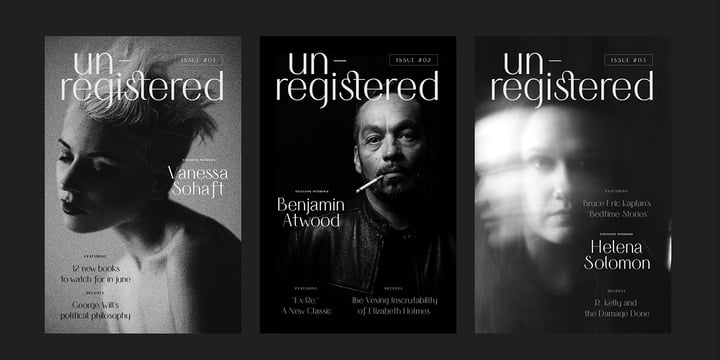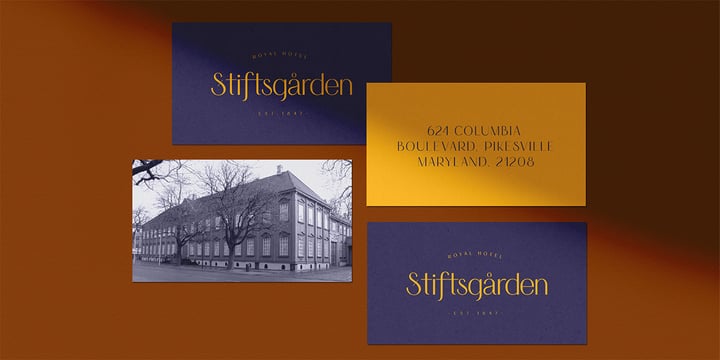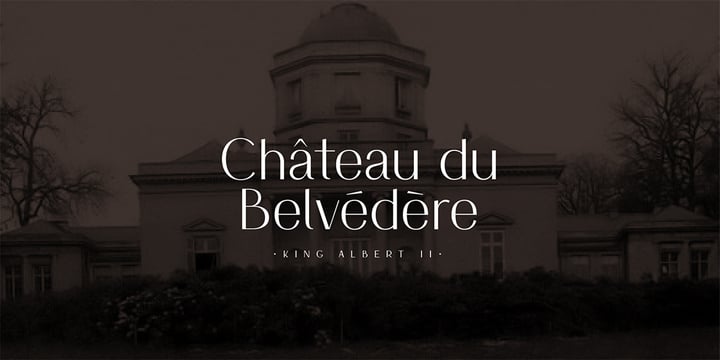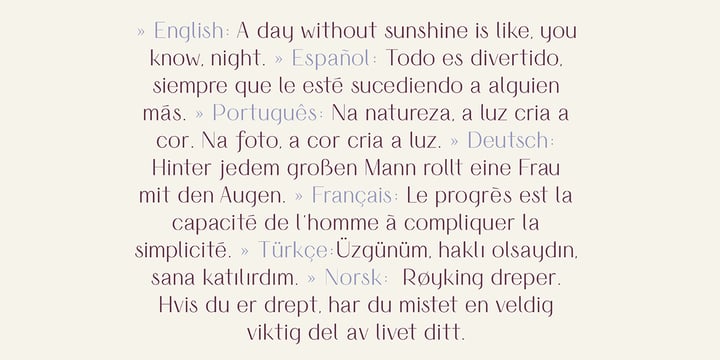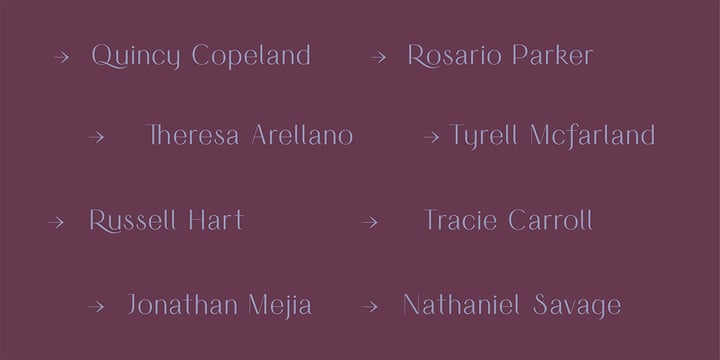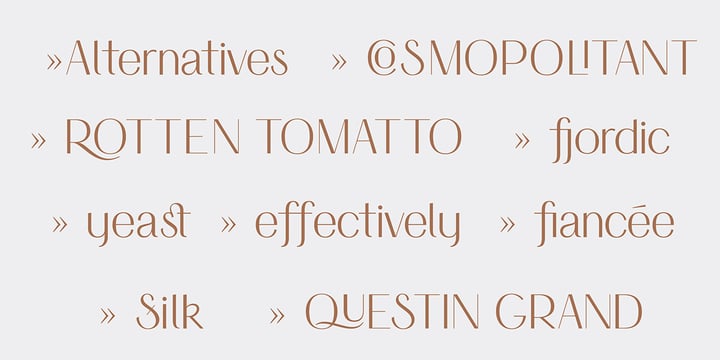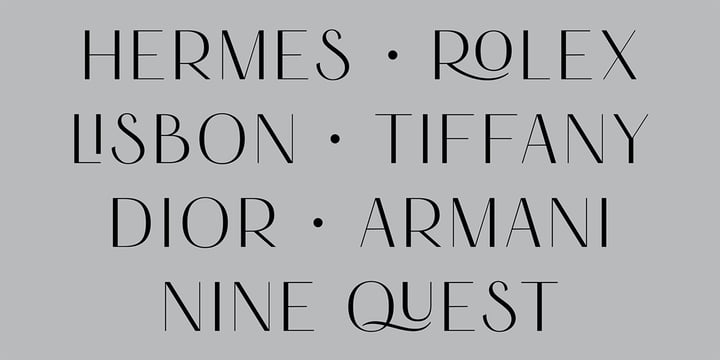
HV Simplicite
by Harmonais Visual
The HV Simplicite Font Family was designed by Max Duy T. and published by Harmonais Visual. HV Simplicite contains 6 styles and family package options. More about this family
Simplicité typeface was designed by Harmonais Visual. A display typeface, with beautiful contrasts. You will be pleased to use the many options of alternates and ligatures, perfectly suitable for creating nice design such as logos, mash head or titles.